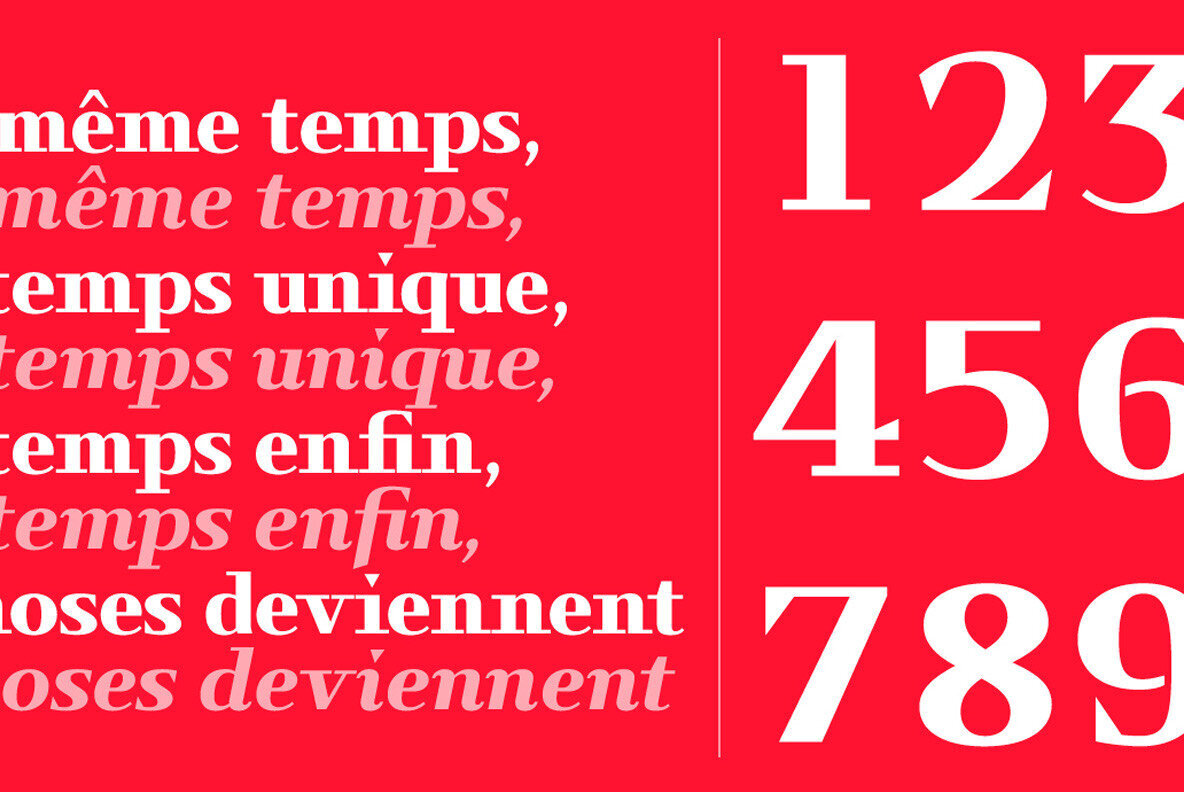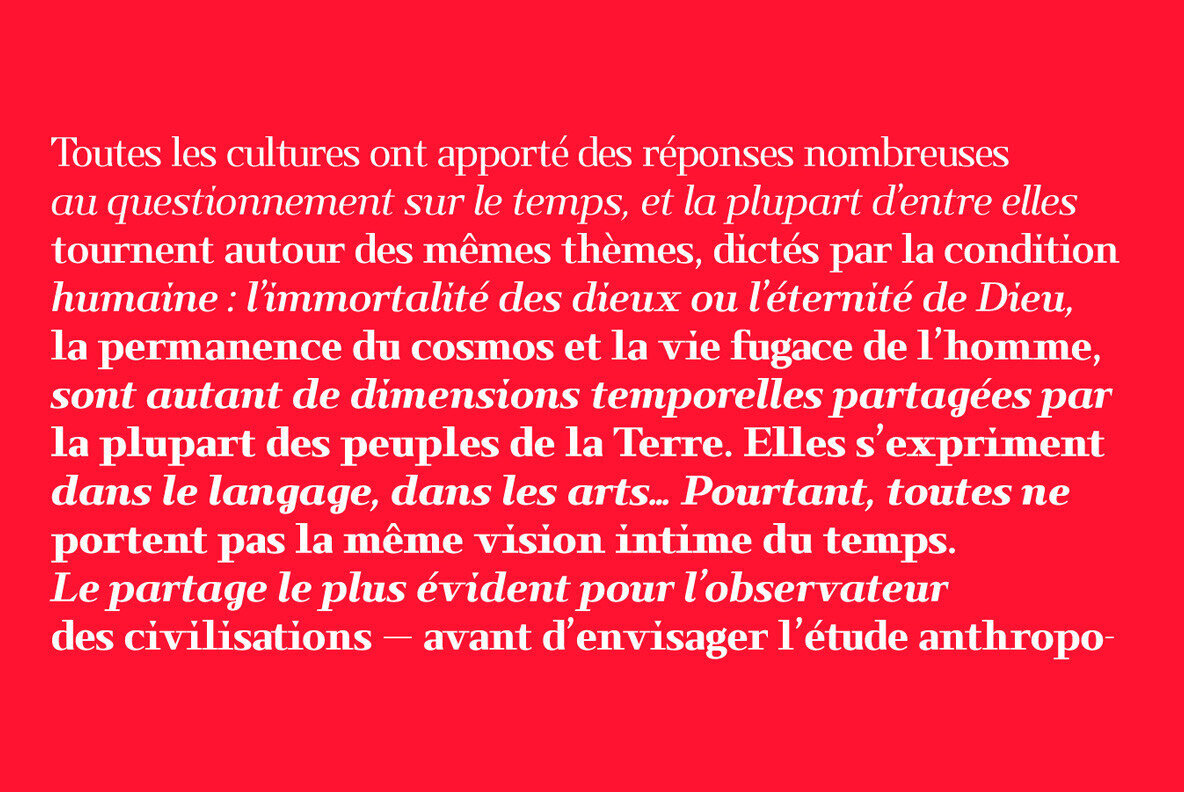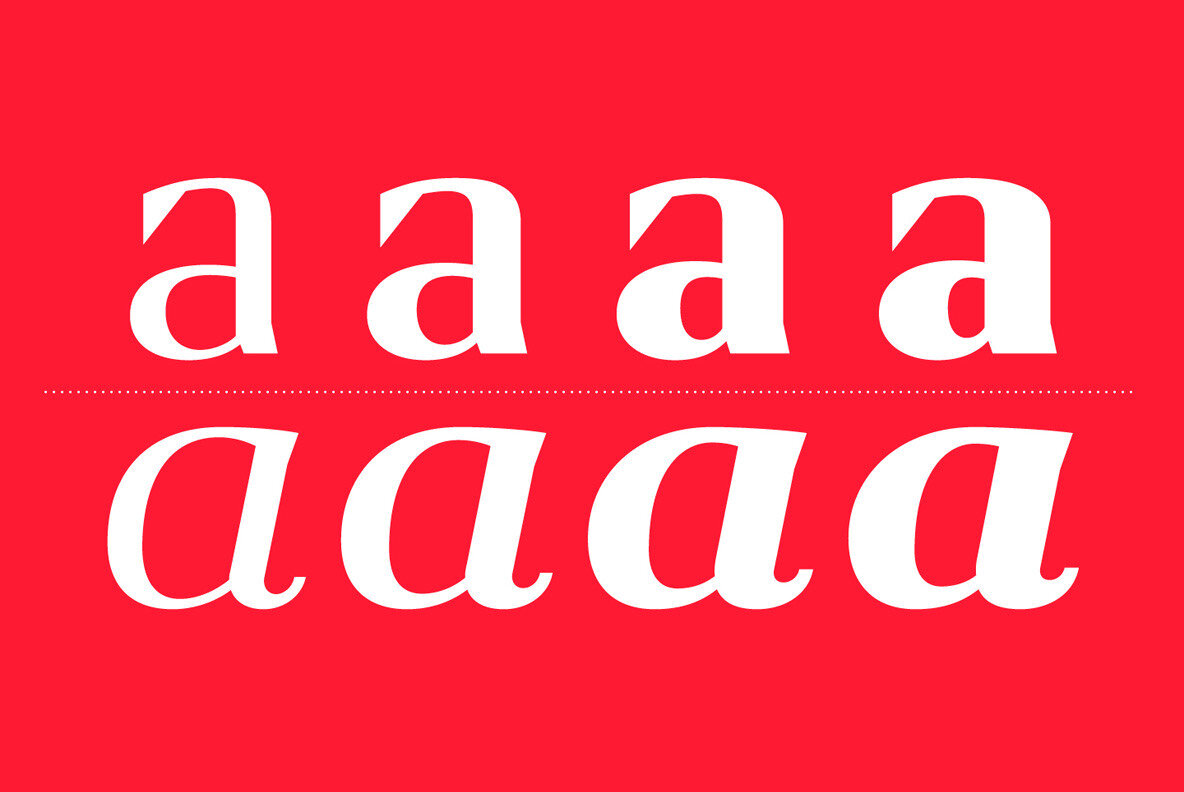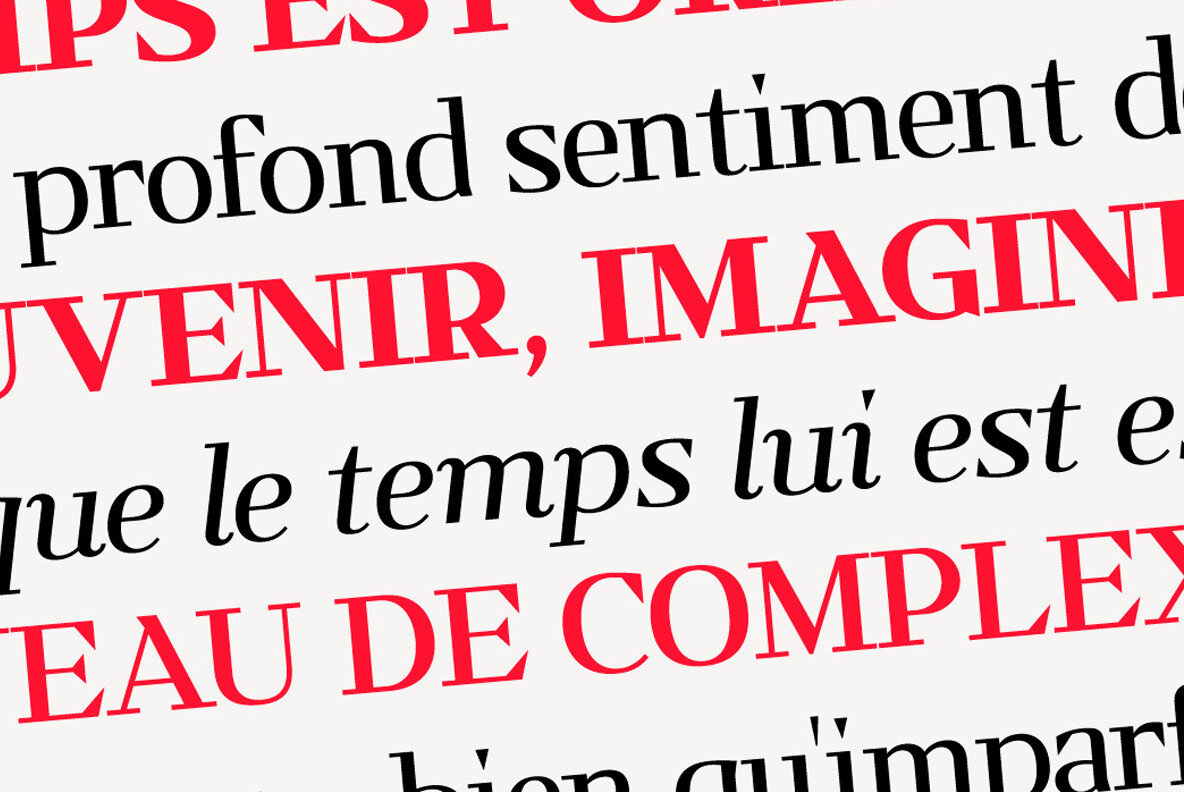
Kalpa Font
Kalpa draws its initial design cues from the timeless dials of vintage wristwatches, particularly those of an iconic diving watch brand. This influence manifests in a sharp and streamlined aesthetic, lending the font a commanding presence. Featuring alternative designs, Kalpa offers enhanced versatility, allowing for personalized letterforms and expanded creative possibilities. Available in four weights along with accompanying italics, Kalpa ensures adaptability across various media platforms. Its suitability spans from captivating headlines to impactful logos, from cohesive branding to enticing packaging, and from engaging publications to dynamic websites. The name “Kalpa” originates from Sanskrit, signifying a significant period of time, echoing the font’s connection to its horological inspiration.